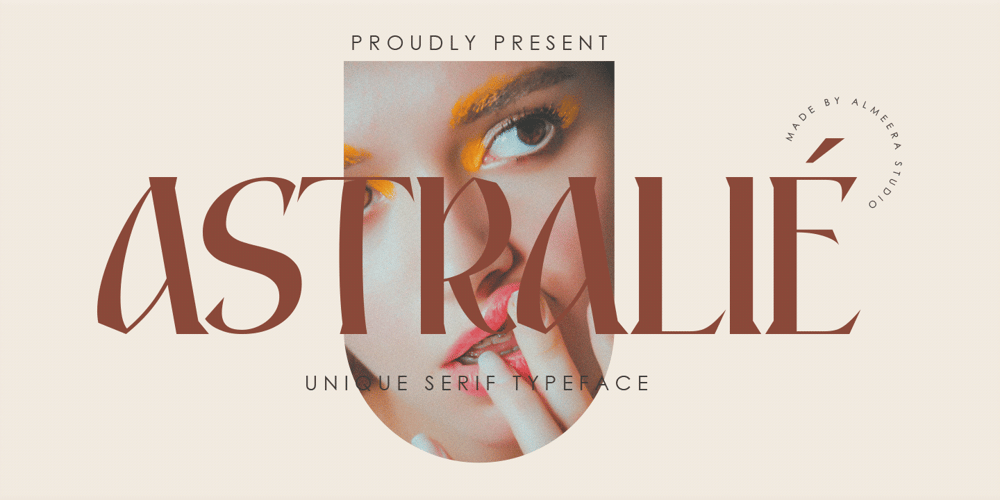
Astralie Font Family was designed by Rinto Dwi Nugroho and published by Almeera Studio. Astralie contains 1 styles and family package options. Introducing the new Astralie Typeface!!! Astralie is a luxury and glamour serif typeface. This font is both modern and nostalgic and works great for logos, magazine, social media. Already matched up and ready to be used together for your next design! For those of you who are needing a touch of elegant, stylish, classy, chic and modernity for your designs, this font was created for you!Perfect for editorial projects, Logo design, Clothing Branding, product packaging, magazine headers, or simply as a stylish text overlay to any background image.No special software is required to type out the standard characters of the Typeface. To access the Opentype Ligatures, you will need software that supports Opentype features in fonts.Current Language Support : Danish, English, Finnish, French, German, German (Switzerland), Norwegian Bokmål, Norwegian Nynorsk, Portuguese, Spanish, Swedish, Swiss German.